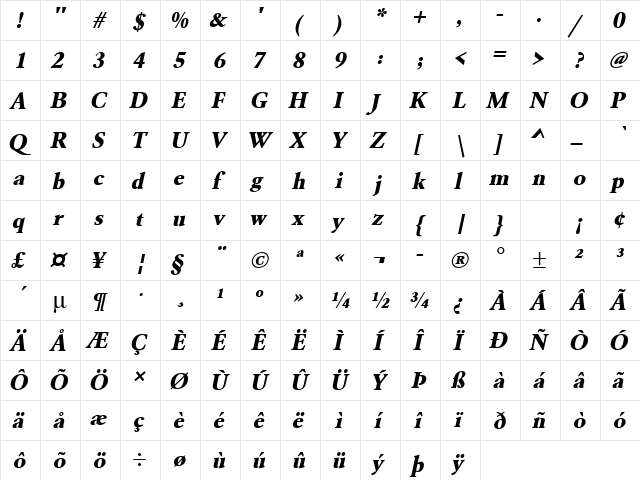
URWGaramondTExtBol Oblique
URWGaramondTExtBol offers clean, dependable letterforms without strong stylistic allegiance, making it a practical choice for designers who need flexibility. The slanted form adds forward momentum and visual energy.
Pro Tip: Use URWGaramondTExtBol for emphasis, pull quotes, and subheadings where its slanted energy can add rhythm to the layout.